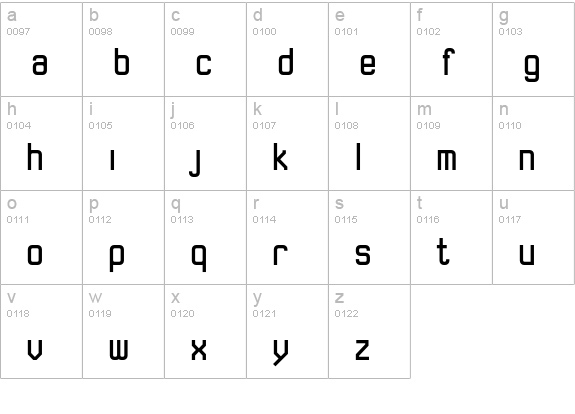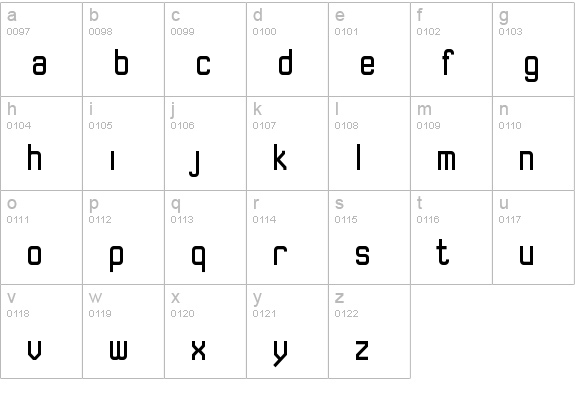
RobustICG Font Details
RobustICG font is a versatile and modern typeface that exudes strength and elegance. Its clean lines and bold shapes make it perfect for a wide range of design projects, from branding to editorial layouts. The sleek and robust design of RobustICG font ensures that your text stands out with confidence and authority. This font is not only visually appealing but also highly functional, making it suitable for both print and digital applications. Its legibility and readability make it an excellent choice for headlines, logos, packaging, and more. The best part is that RobustICG font is available for free download at FontsMarket.com. So, whether you're a designer looking to add a powerful touch to your creations or a business in need of a strong visual identity, RobustICG font has got you covered. Download it today and elevate your design projects to the next level with this exceptional typeface.